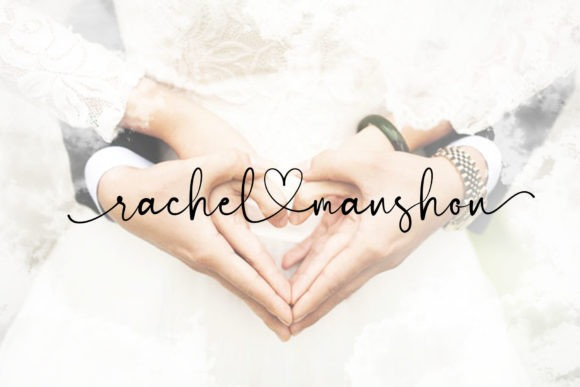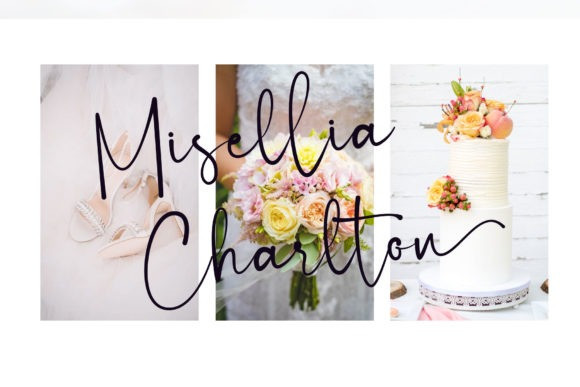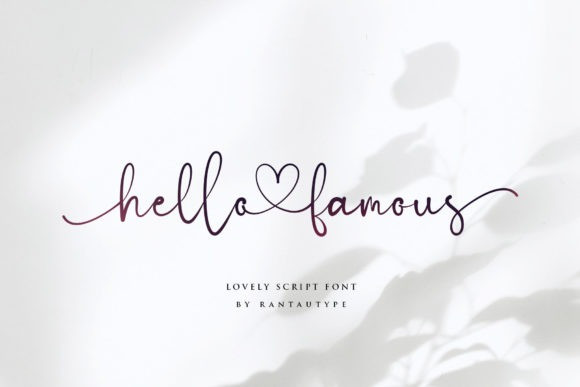
Hello Famous Font
Hello Famous Font is an elegant and sweet script with a romantic spark. Use it to add that special enchanting touch to any design idea you can think of!
This font is PUA encoded which means you can access all of the glyphs and swashes with ease!